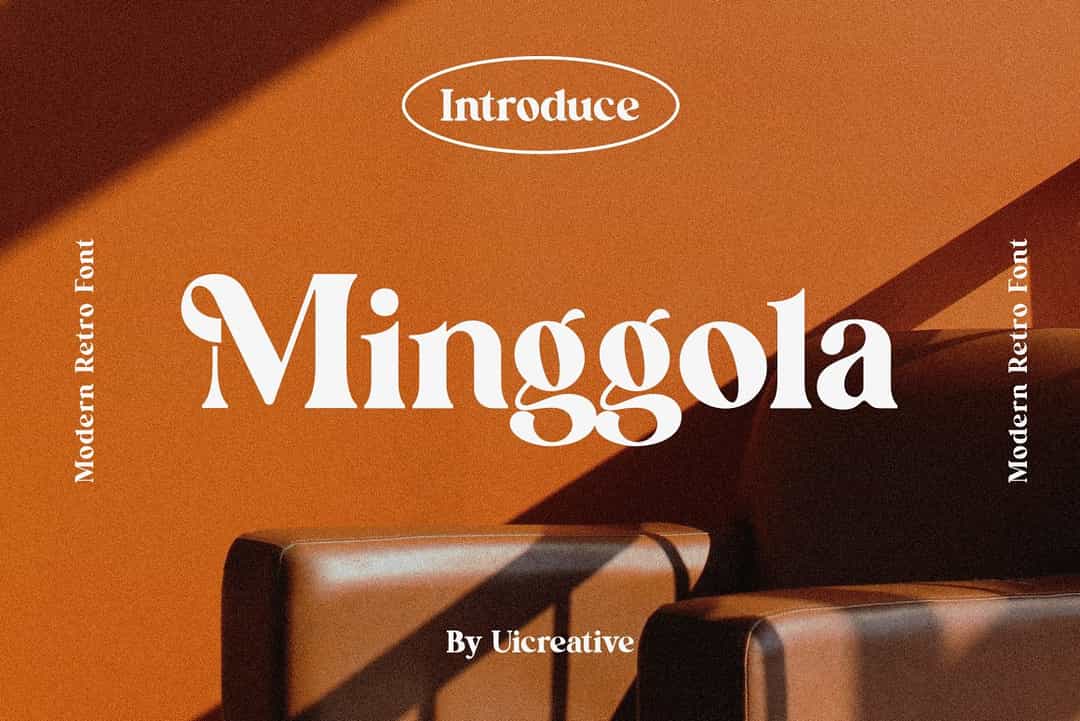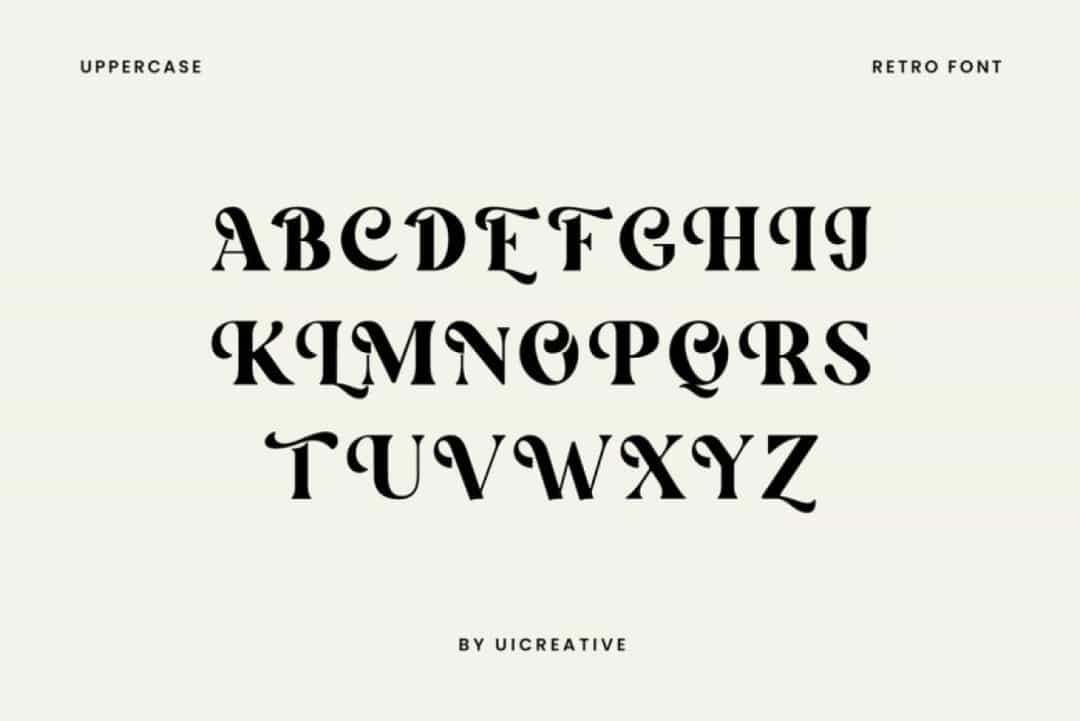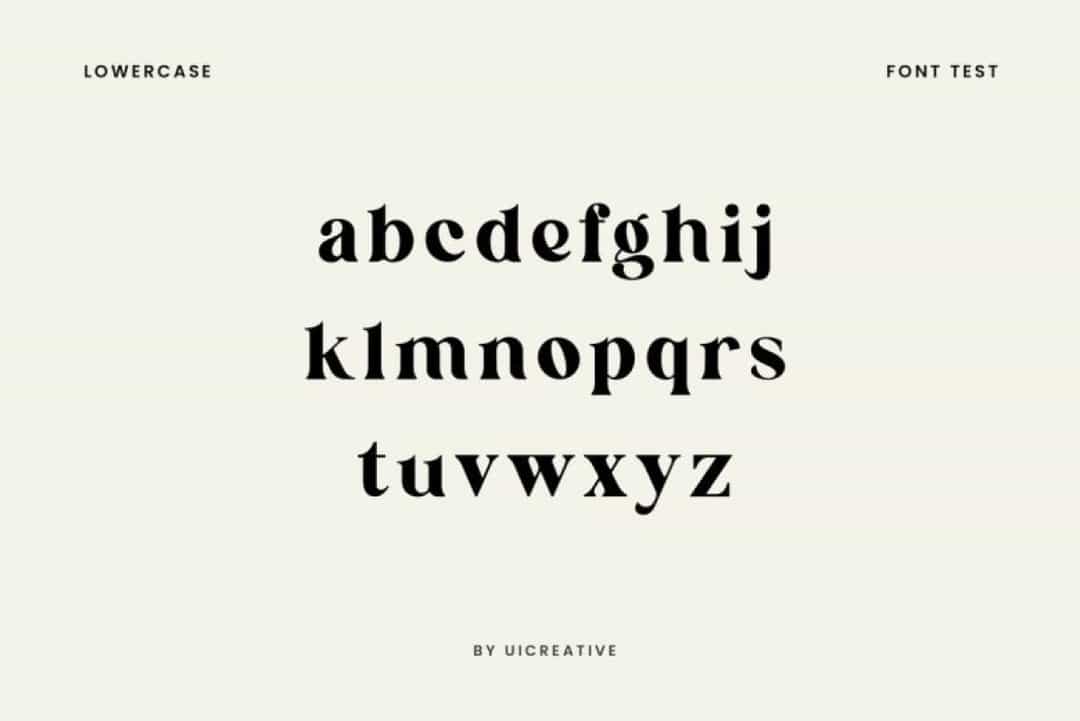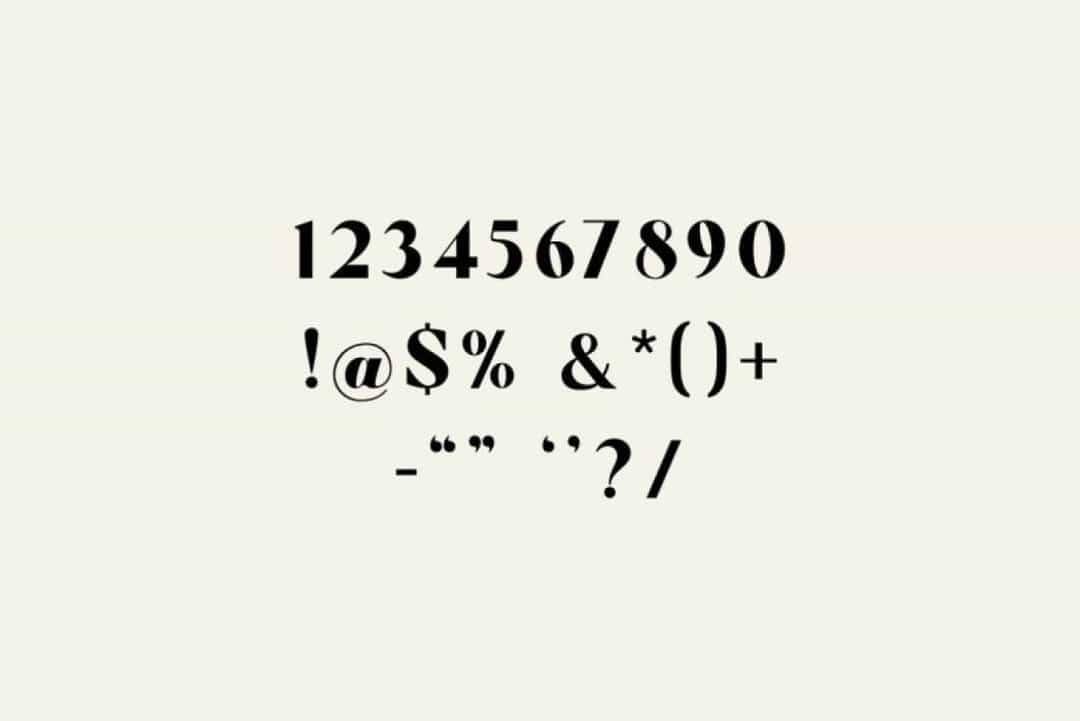
Minggola is an elegant, classic serif typeface that feels modern. Perfect for many different projects such as logo design, signatures, stationery wedding invitations and stationery wedding plans; magazine or book covers featuring quotes; headers for websites and packaging designs; clothing branding designs as well as branding design projects of any sort – this font makes an impressionful first impression and serves well in many applications.